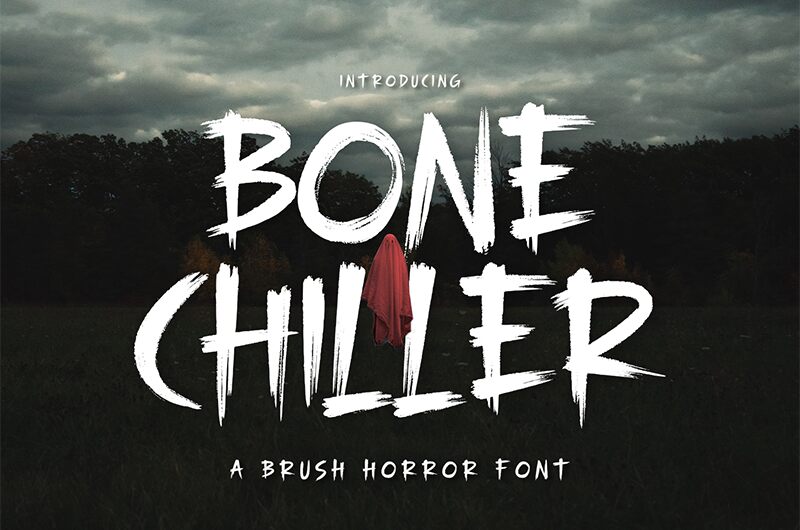
Bonechiller
Bonechiller, designed by Alpaprana Studio, is a hauntingly beautiful display font that combines the terror of horror with a modern brush style. Its chilling letters evoke a sense of fear and suspense, making it ideal for a wide range of projects.
Use Bonechiller to create spine-tingling branding and logo designs that leave a lasting impression. Its eerie charm lends itself perfectly to lettering and logotypes that demand attention. This font is also perfect for clothing designs that want to embrace the darkness within. Whether it's posters, magazine layouts, or packaging designs, Bonechiller will infuse your creations with an unsettling allure.
From shopping bags to t-shirts and book covers to photography, this font is perfect for adding an element of fright to any special event or design project.